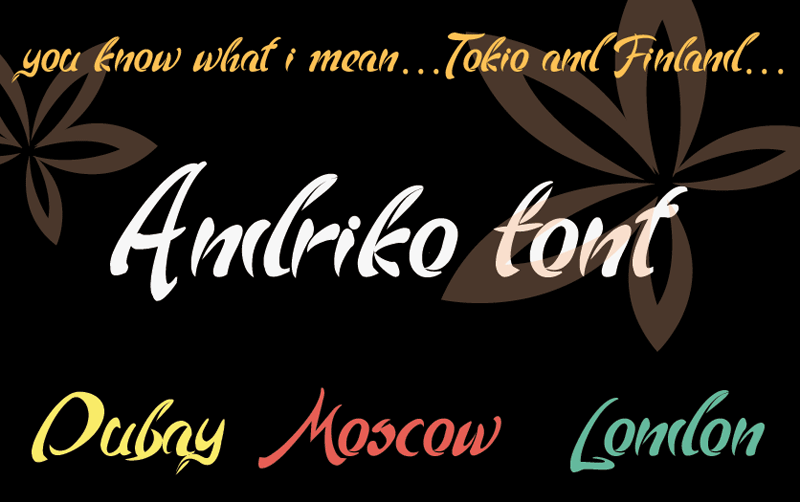
The Andriko font is inspired by the flow of nature. The fluid grace of the striking, natural strokes evokes a sense of primal luxury perfect for anyone wanting to make a bold and unique statement. If you want buy this font, please contact me andriko1@mail.ru |